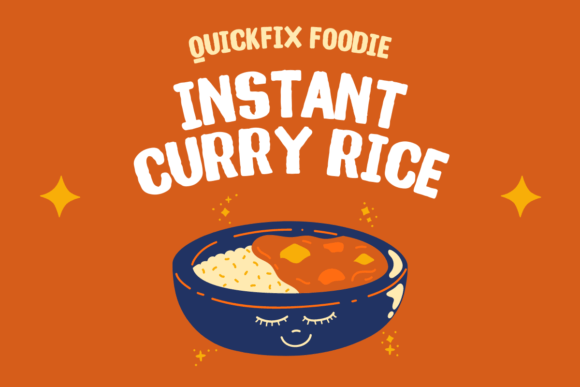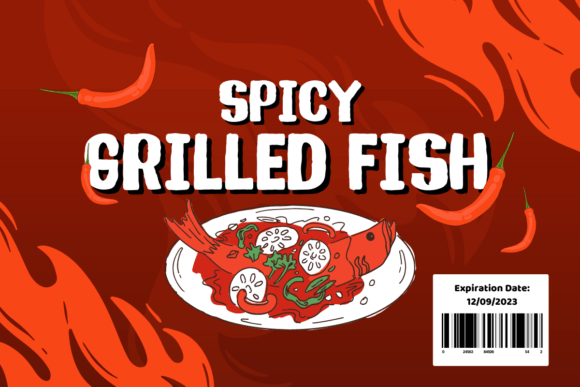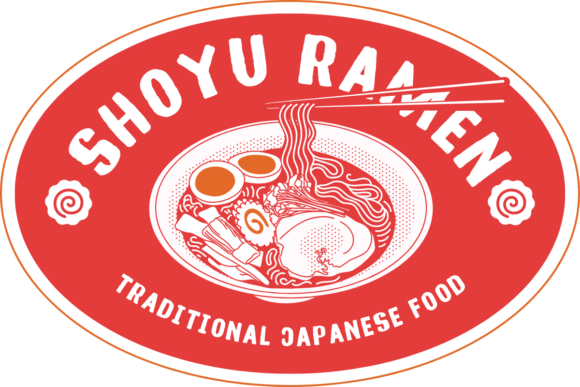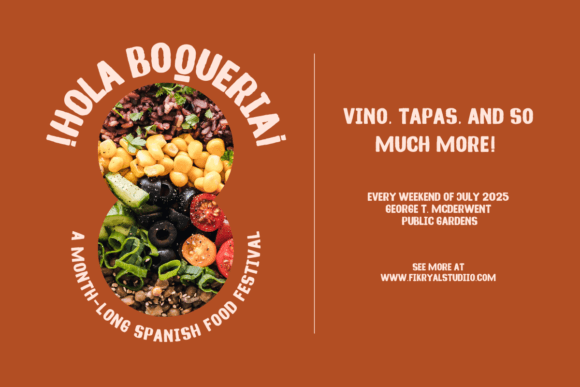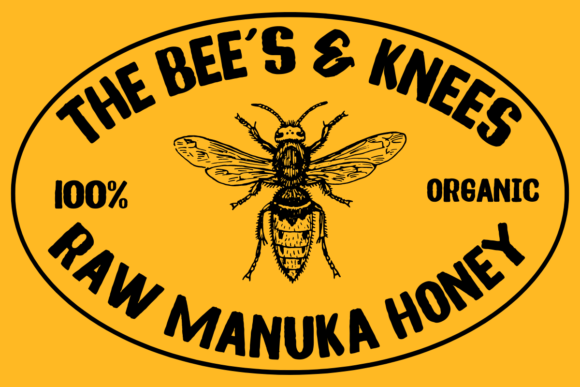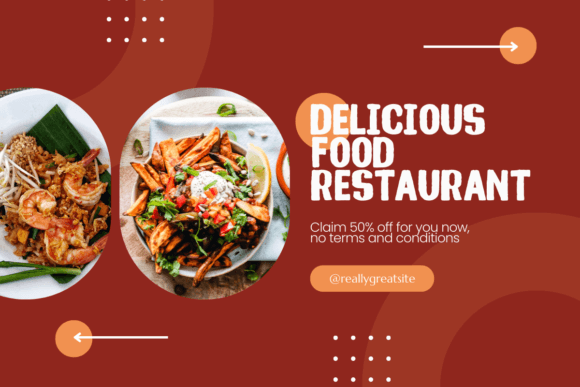
Cream Soup Font: The Perfect Display Brush Font for Creative Projects
Are you a designer or crafter looking for a unique and creative font to elevate your projects? Look no further than Cream Soup Font, a stunning display brush font that’s perfect for a wide range of applications. In this article, we’ll explore the features and benefits of Cream Soup Font, and show you how to use it to take your designs to the next level.
What is Cream Soup Font?
Cream Soup Font is a beautiful display brush font that’s designed to add a touch of elegance and sophistication to your projects. With its smooth, flowing lines and rustic charm, this font is perfect for creating eye-catching logos, branding materials, titles, social media posts, advertisements, product packaging, and more.
Key Features of Cream Soup Font
• Display Brush Font: Cream Soup Font is a display brush font, which means it’s designed to be used at larger sizes, making it perfect for headlines, titles, and other display text.
• Unique and Creative: With its rustic, hand-brushed look, Cream Soup Font adds a touch of personality and whimsy to your designs.
• High-Quality Design: Cream Soup Font is designed with high-quality, smooth lines that ensure it looks great in both digital and print formats.
• Versatile: This font can be used for a wide range of projects, from logos and branding to social media posts and product packaging.
Uses for Cream Soup Font
Cream Soup Font is an incredibly versatile font that can be used for a wide range of projects, including:
• Logos and Branding: Create a unique and memorable logo for your business or brand with Cream Soup Font.
• Social Media Posts: Add a touch of personality to your social media posts with this eye-catching font.
• Advertisements: Use Cream Soup Font to create eye-catching ads that grab attention and drive results.
• Product Packaging: Add a touch of elegance and sophistication to your product packaging with this beautiful font.
• Labels and Photography: Use Cream Soup Font to create beautiful labels and watermarks for your photos.
• Special Events: Create stunning invitations, programs, and other materials for special events like weddings, parties, and more.
• Magazines and Web Designs: Use Cream Soup Font to add a touch of personality and style to your magazine and web designs.
Tips for Using Cream Soup Font
Here are a few tips for getting the most out of Cream Soup Font:
• Use it as a Headline Font: Cream Soup Font is designed to be used as a headline font, so use it to create eye-catching titles and headings.
• Experiment with Colors: Try pairing Cream Soup Font with different colors to create unique and eye-catching effects.
• Mix and Match: Don’t be afraid to mix and match Cream Soup Font with other fonts to create interesting and dynamic designs.
Cream Soup Font is a beautiful and versatile display brush font that’s perfect for designers and crafters looking to add a touch of elegance and sophistication to their projects. With its smooth, flowing lines and rustic charm, this font is sure to elevate your designs and help you stand out from the crowd. So why wait? Download Cream Soup Font today and start creating stunning designs that showcase your creativity and style!